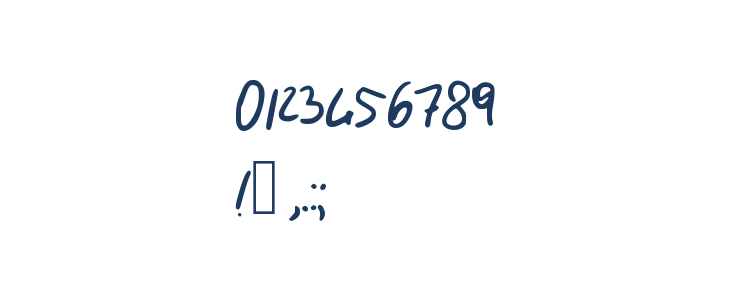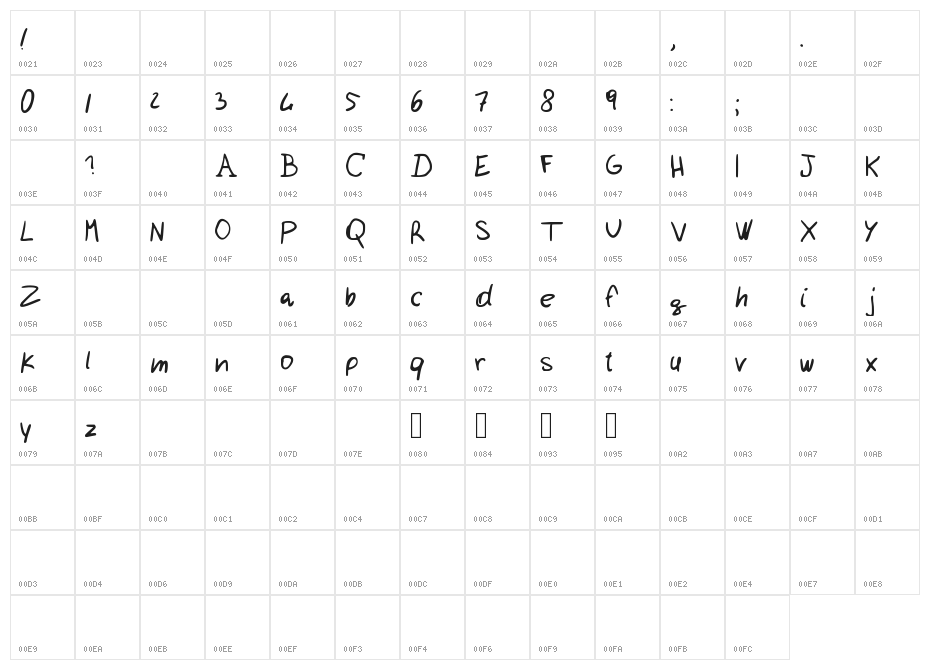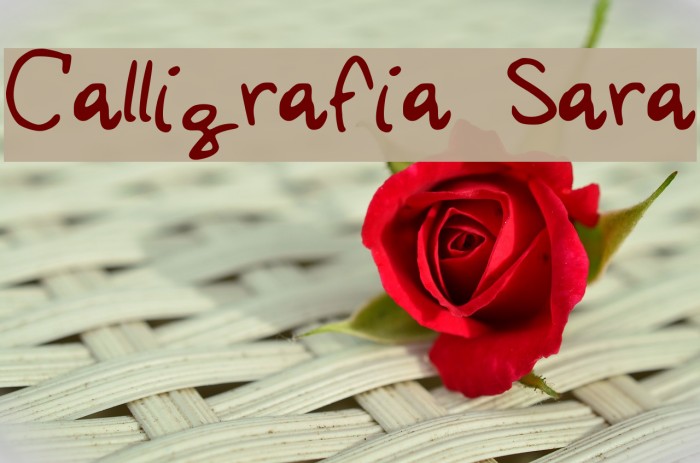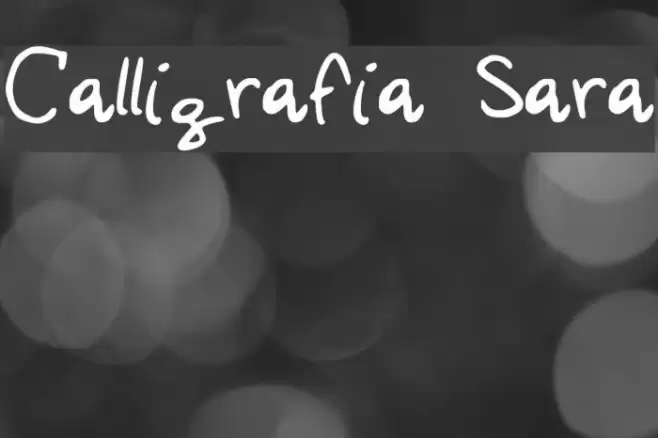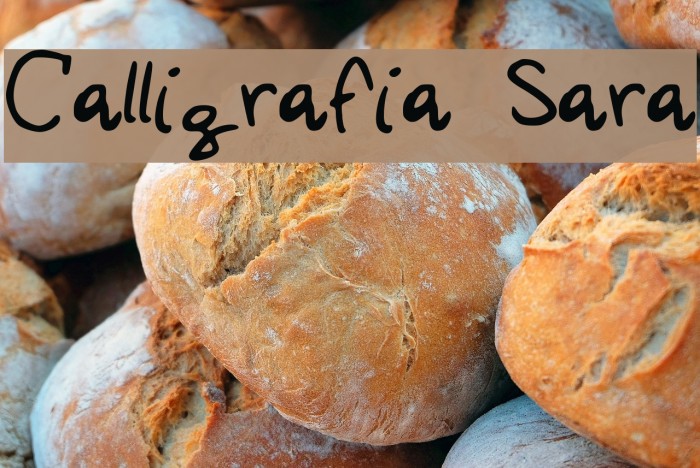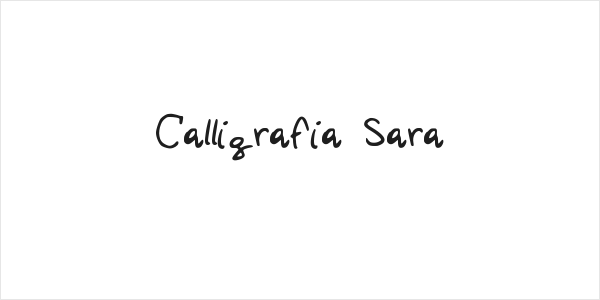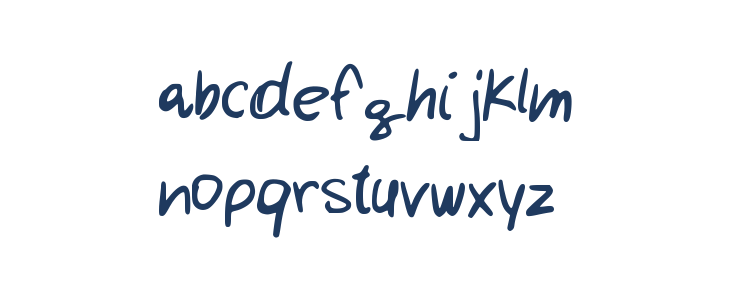
Calligrafia Sara Font
Calligrafia Sara Description
This font exudes a playful and casual handwritten style, characterized by its smooth, flowing curves and slightly irregular letterforms. The uppercase letters are bold and prominent, while the lowercase letters maintain a consistent flow with a slight slant, adding to the informal aesthetic. The numbers are rounded and maintain the same playful style, ensuring readability. Special characters are crafted with the same attention to detail, making them blend seamlessly with the rest of the font. This font is perfect for projects that require a personal touch, such as greeting cards, invitations, or any design that aims to convey warmth and approachability.